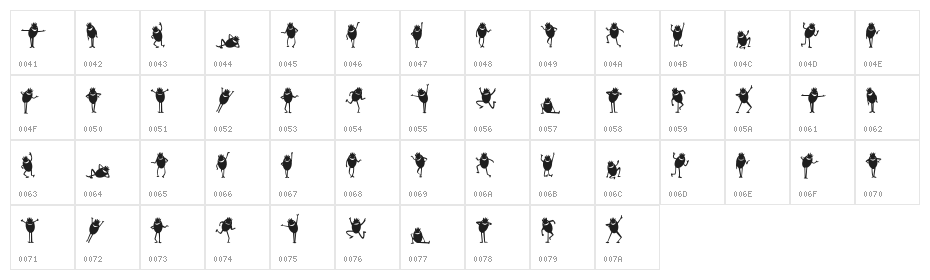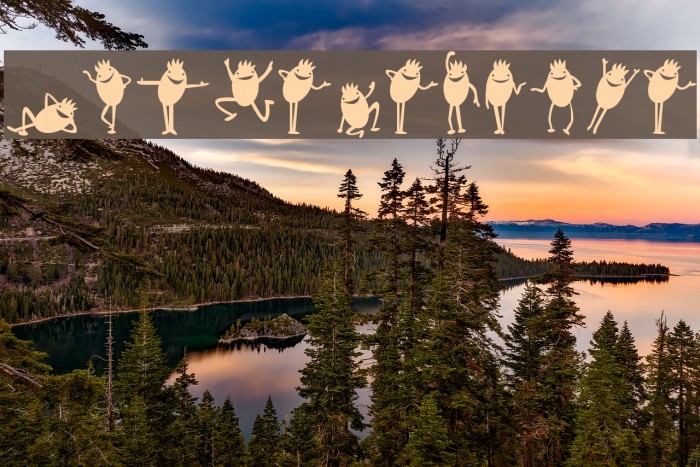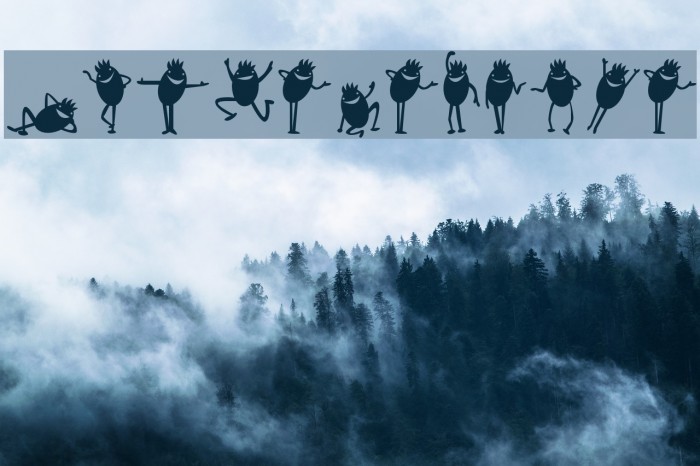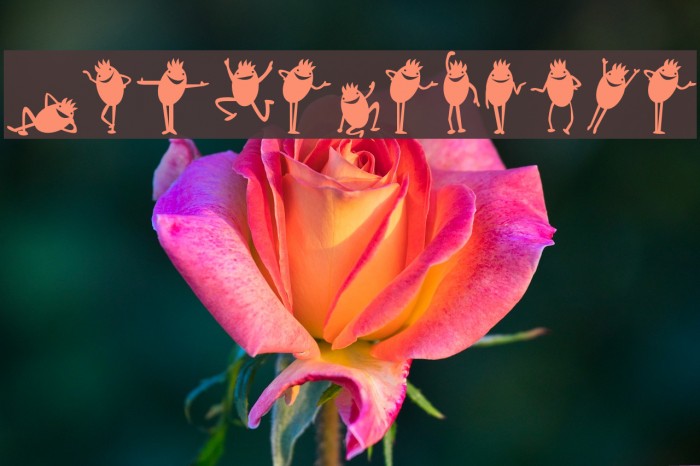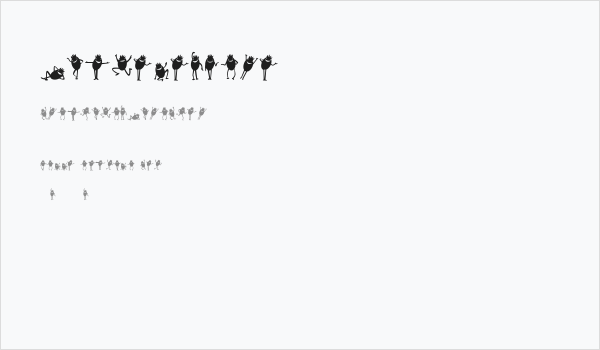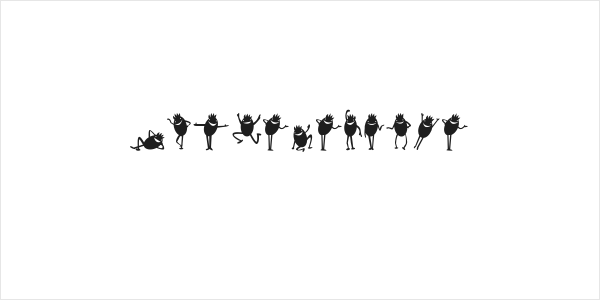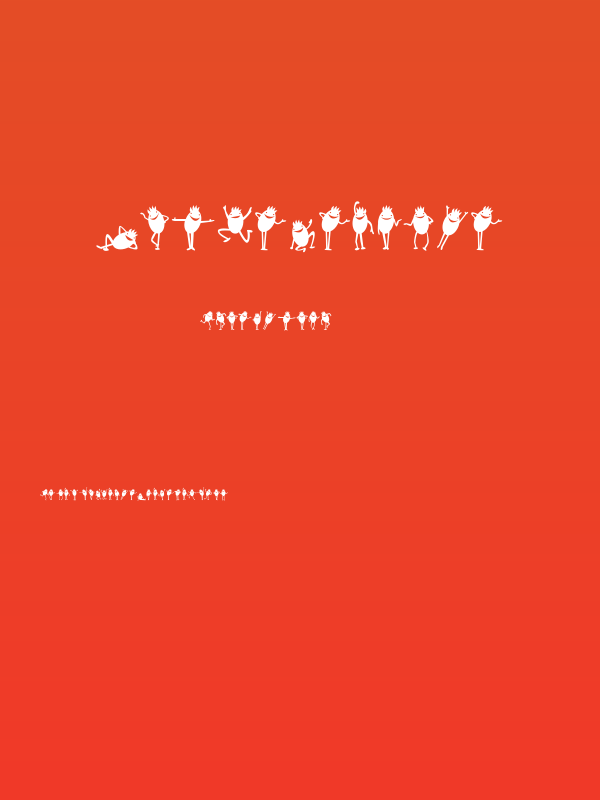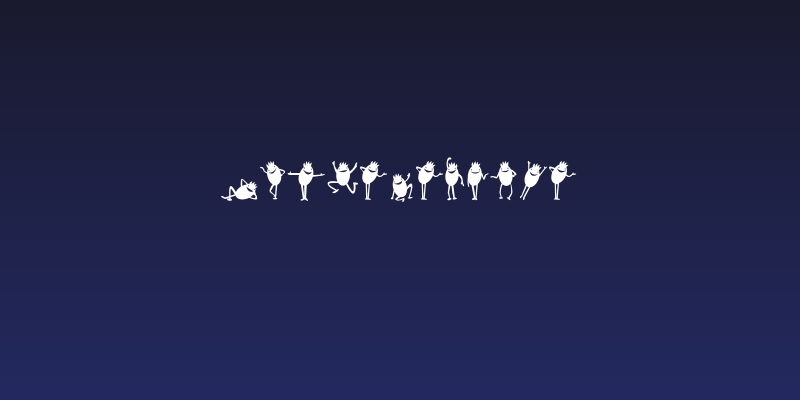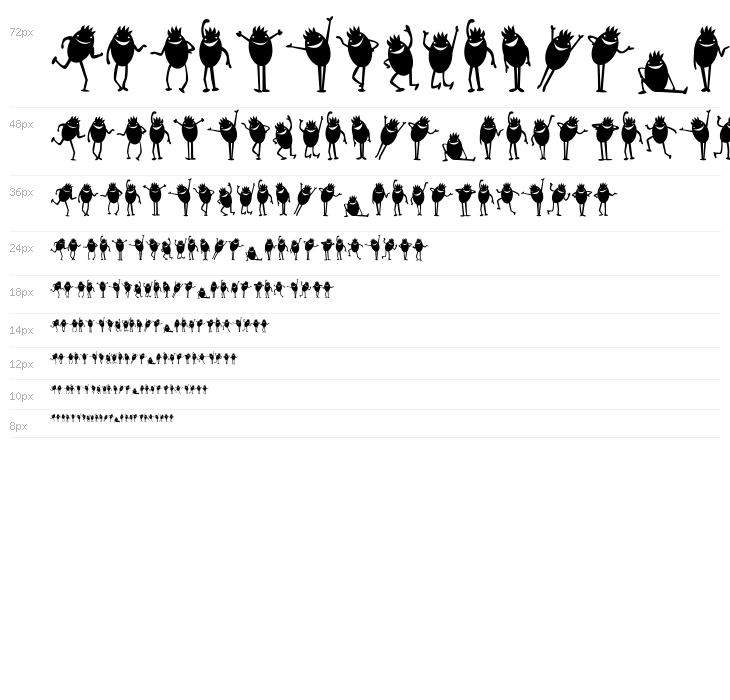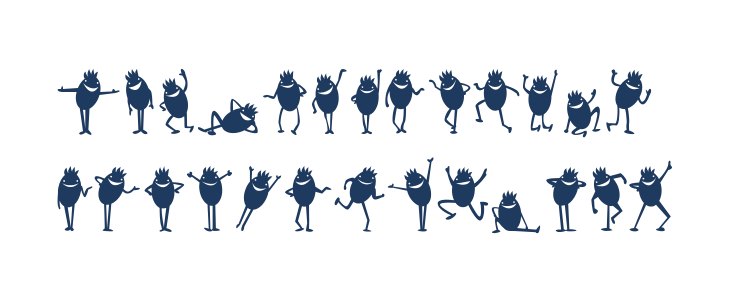
Diavolo Nero Font
Diavolo Nero Description
A playful, decorative font featuring whimsical cartoon characters in various dynamic poses, each representing a different letter or symbol. The characters have spiky hair, expressive arms and legs, and a bold silhouette, creating a lively and energetic appearance.
| Overall Style | Playful, Whimsical, Decorative |
| Use Case | Headlines, Posters, Logos, ChildrenΓ’β¬β’s materials |
| Proposed Projects | ChildrenΓ’β¬β’s books, party invitations, playful branding, posters, comics, educational materials. |